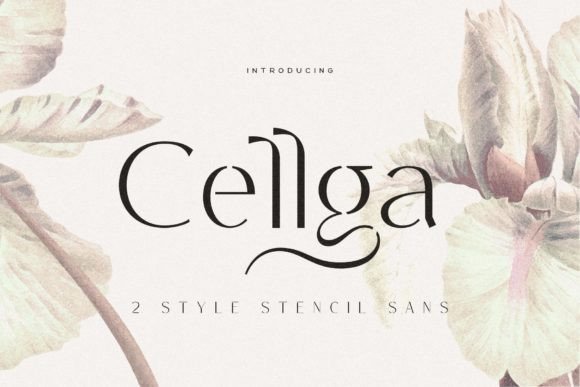
Introducing the Cellga font - the perfect choice for designers seeking a unique and charming concept in their projects. Created by Alit Design, this sans serif font is not your ordinary stencil font. Cellga brings a touch of elegance and attractiveness to the stencil style, making it perfect for modern designs with a subtle swash.
What sets Cellga apart is its many alternative character shapes and unique Discretionary ligatures, making it stand out from other fonts. The Cellga font family is a must-have for any font collection on your computer.
Sans Serif typefaces are known for their easy application to any design, and Cellga is no exception. Its versatile nature makes it a great choice for designers looking for an elegant, modern, and classic theme.
Cellga is PUA encoded, making it easy for users to access all of the glyphs and swashes with ease. Whether you're creating a website, branding, or print designs, Cellga will elevate your designs to the next level.